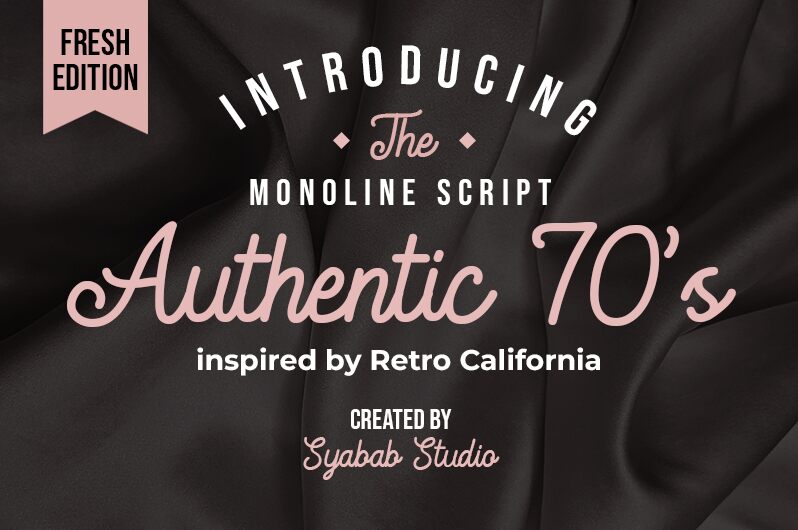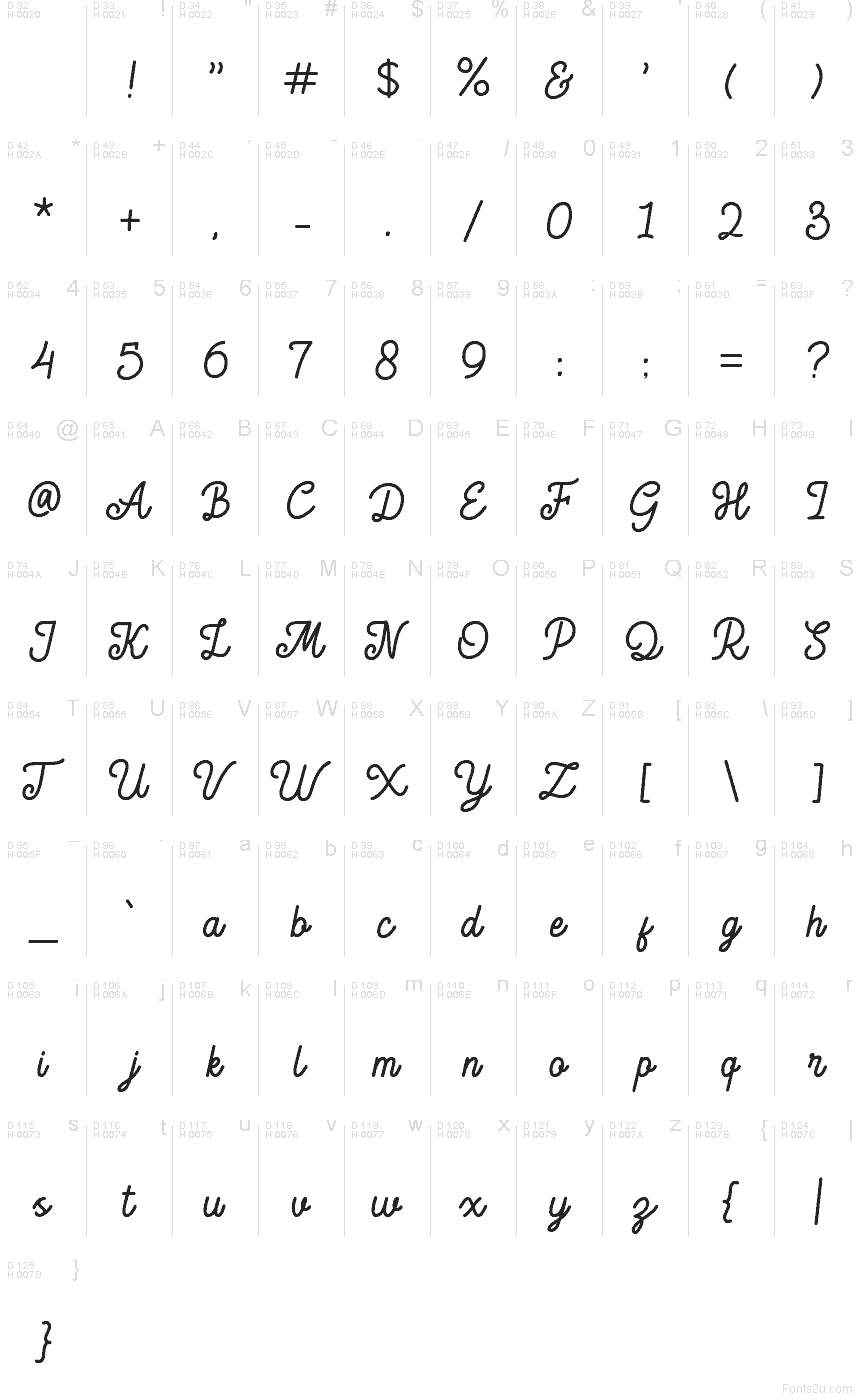
Authentic 70's font by Syabab is a free vintage calligraphy typeface that feels like it was pulled straight from an old diner sign or a worn record sleeve. Its smooth, looping strokes and gently tilted rhythm give it an easy, hand-lettered swing, while the even weight keeps everything legible and polished. The result is a script that feels nostalgic without looking dusty-retro, but still ready for modern layouts.
Using Authentic 70's, you can bring warm, analog charm to retro logos, T-shirt graphics, signage, packaging, badges, and social media titles. This free font shines when set large, where its flowing connections and rounded curves have room to breathe. Pair it with a simple, neutral sans serif for body text to let the script handle the personality while your message stays clear and readable.